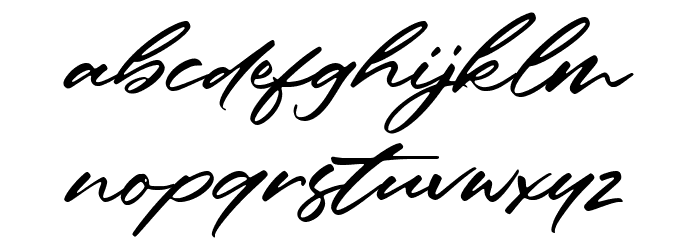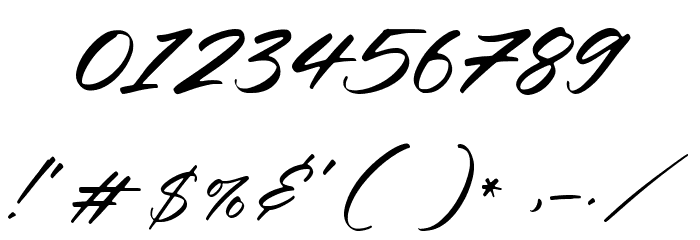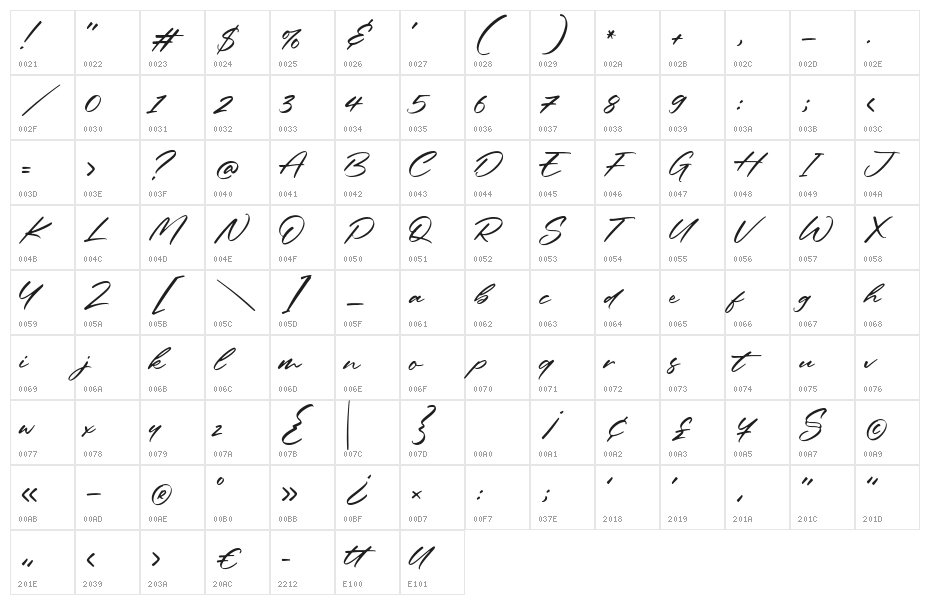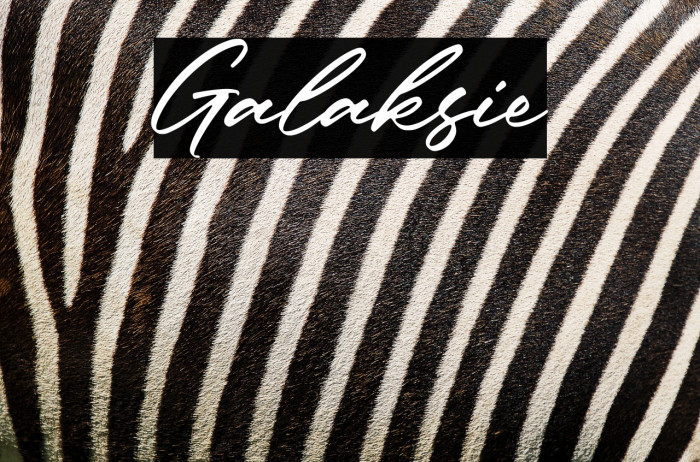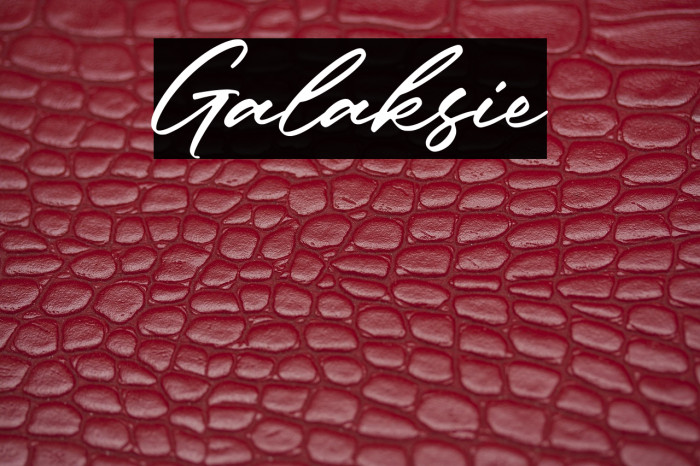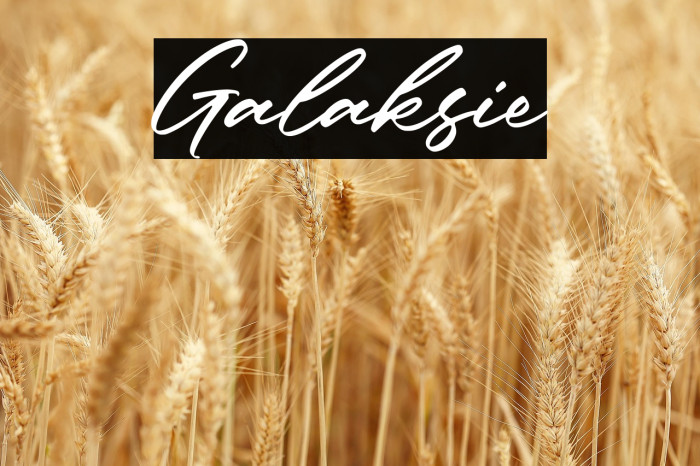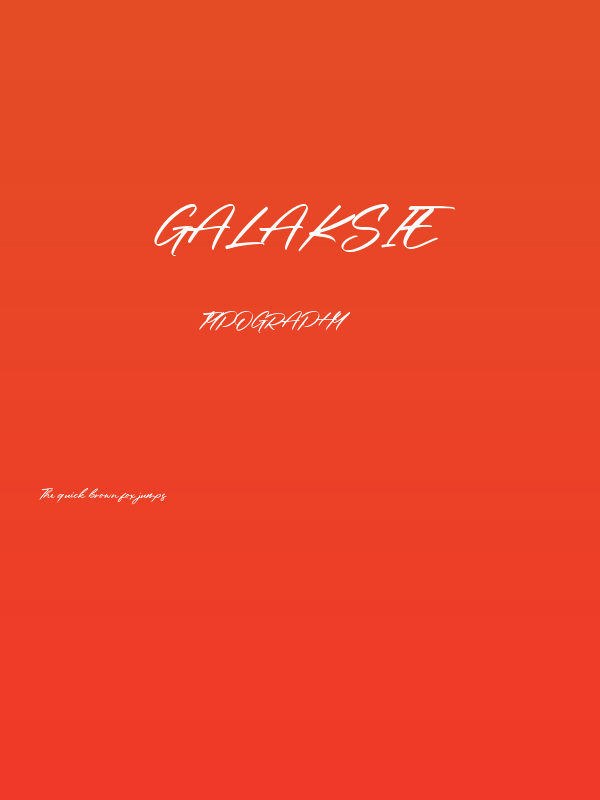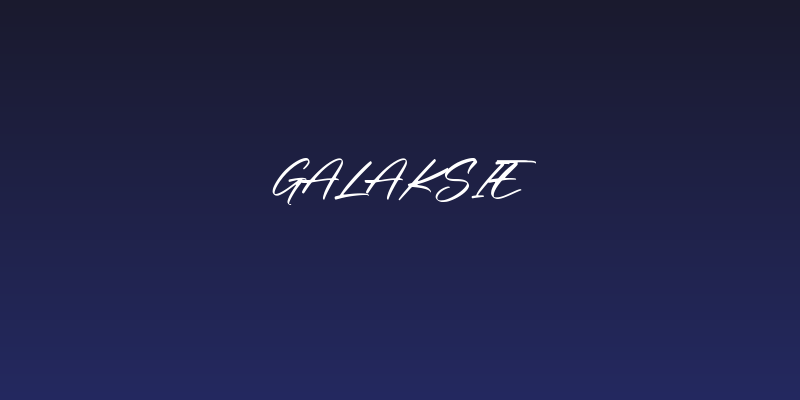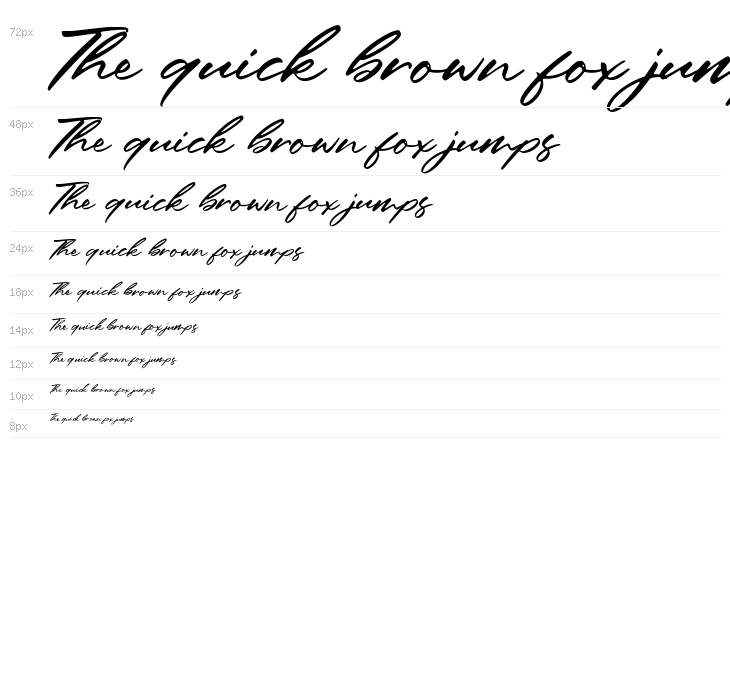
Galaksie Font
This font features a dynamic and fluid script style, characterized by its elegant, flowing lines and cursive letterforms. The uppercase letters are bold and sweeping, with dramatic flourishes that give a sense of movement and grace. The lowercase letters maintain a consistent slant and are connected, enhancing the script's cohesive appearance. Numbers and special characters are designed to match the overall aesthetic, with similar curves and strokes. The font's overall look is sophisticated and artistic, making it suitable for projects that require a touch of elegance and personality.
A dynamic and elegant script font with flowing, cursive letterforms.
- Proposed Projects: Ideal for wedding invitations, branding, logos, and elegant stationery.
- Category: Script
- Overall Style: Elegant
- Use Case: Logos, Invitations, Branding